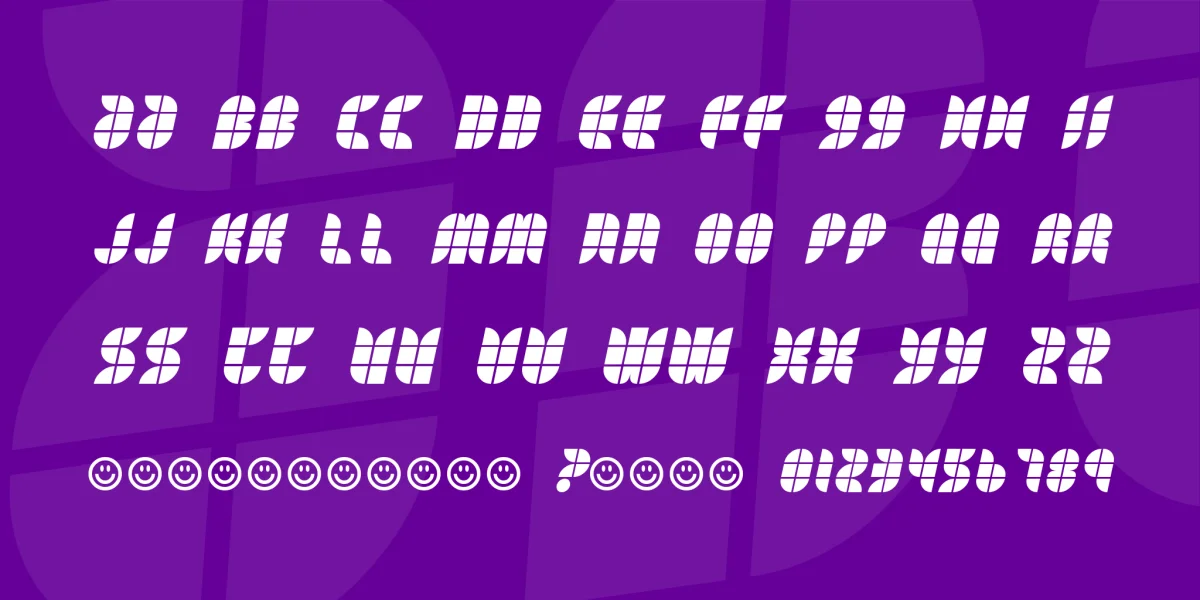
This font was made of three different shapes which which were rotated to fit the different letters. I wouldn't use this font for letters, but for logo's, headlines and stuff!